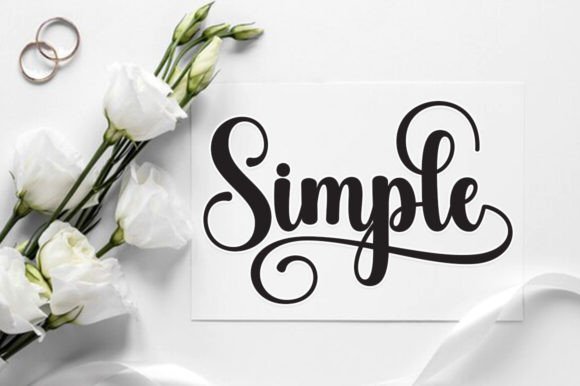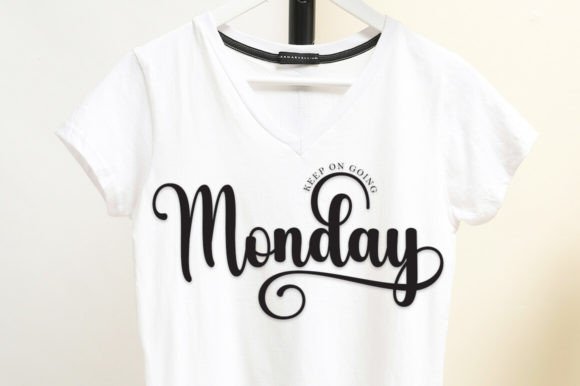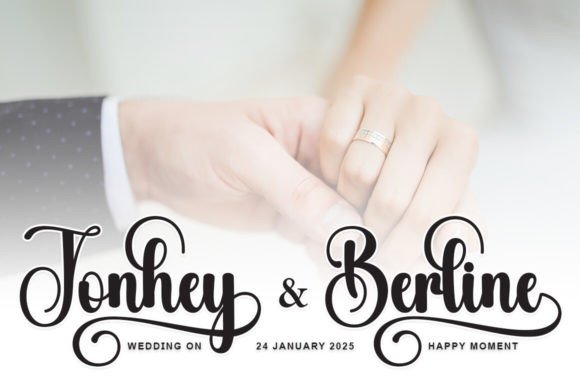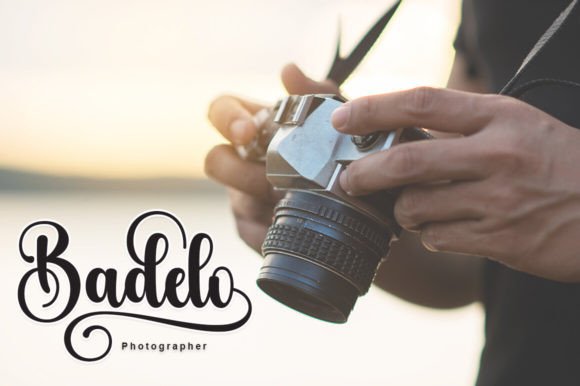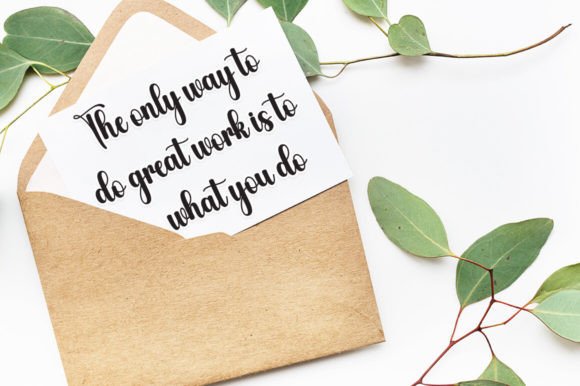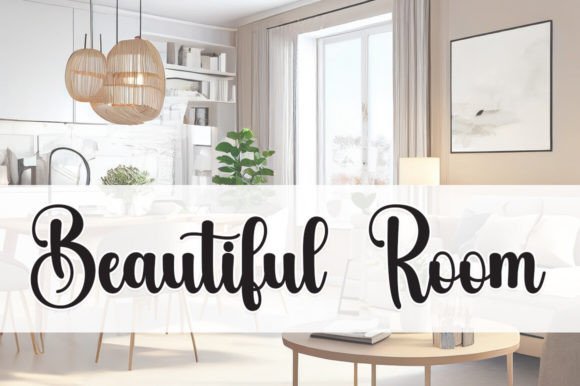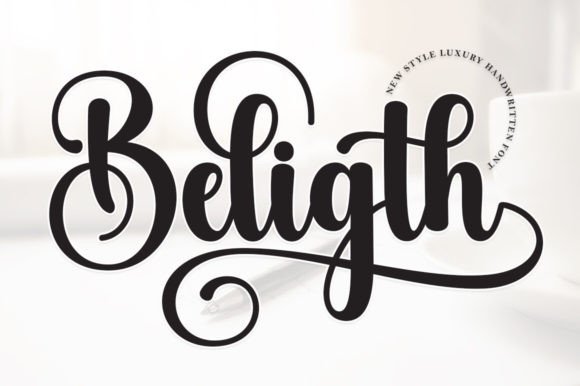
Beligth Font: The Ultimate Handwritten Font for Happy Designs
Are you tired of using the same old fonts for your designs? Do you want to add a touch of happiness and fun to your branding, packaging, or wedding invitations? Look no further than Beligth Font, a delightful handwritten font that is sure to bring a smile to your audience’s faces.
What is Beligth Font?
Beligth Font is a carefully crafted handwritten font that exudes joy and positivity. Its unique and playful design makes it perfect for a wide range of applications, from branding and packaging to logotypes, headlines, and wedding invitations. With Beligth Font, you can add a personal touch to your designs and make them stand out from the crowd.
Key Features of Beligth Font
- Handwritten with love: Beligth Font is a genuine handwritten font, created with love and care to bring a human touch to your designs.
- Happy and fun mood: This font is designed to evoke feelings of happiness and fun, making it perfect for designs that need to be upbeat and engaging.
- Multipurpose: This font is versatile and can be used for a wide range of applications, including branding, packaging, logotypes, headlines, wedding invitations, and more.
Why Choose Beligth Font?
With so many fonts available, why choose Beligth Font? Here are just a few reasons:
- Unique design: Beligth Font has a unique and distinctive design that will set your designs apart from the crowd.
- Time-saving: Beligth Font is a high-quality font that is ready to use, saving you time and effort in creating your own custom font.
Use Cases for Beligth Font
Beligth Font is a versatile font that can be used in a wide range of applications, including:
- Branding: Use Beligth Font to create a unique and memorable brand identity that stands out from the crowd.
- Packaging: Add a touch of personality to your packaging with Beligth Font, making your products more appealing to customers.
- Logotype: Create a custom logotype with Beligth Font that reflects your brand’s personality and values.
- Headline: Use Beligth Font to create eye-catching headlines that grab attention and draw readers in.
- Wedding invitation: Add a touch of whimsy and romance to your wedding invitations with Beligth Font.
Tips for Using Beligth Font
Here are a few tips for getting the most out of Beligth Font:
- Experiment with sizes and colors: Play around with different sizes and colors to find the perfect combination for your design.
- Mix and match with other fonts: Combine Beligth Font with other fonts to create a unique and visually appealing design.
- Use glyphs and ligatures: Take advantage of the PUA encoding to access all the glyphs and ligatures and add extra personality to your design.